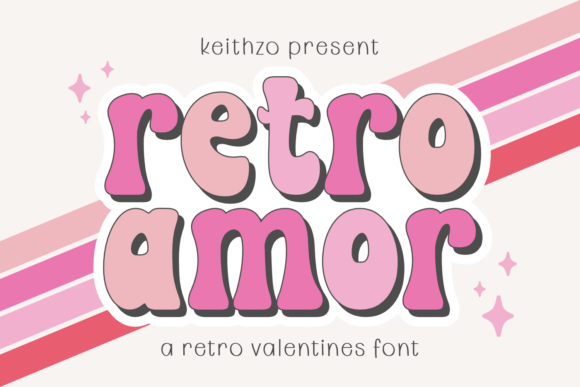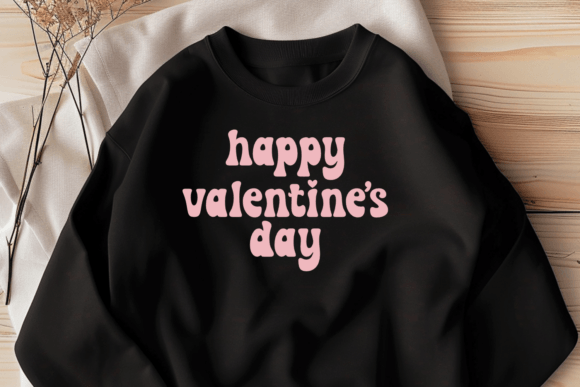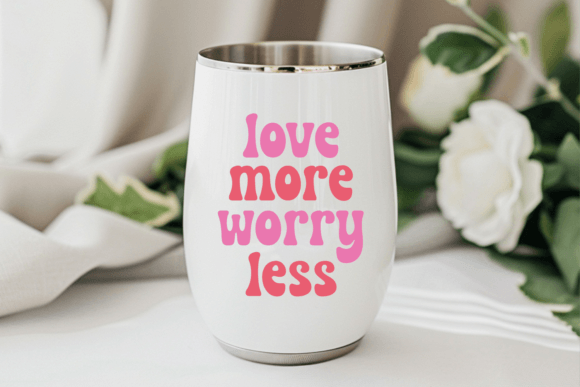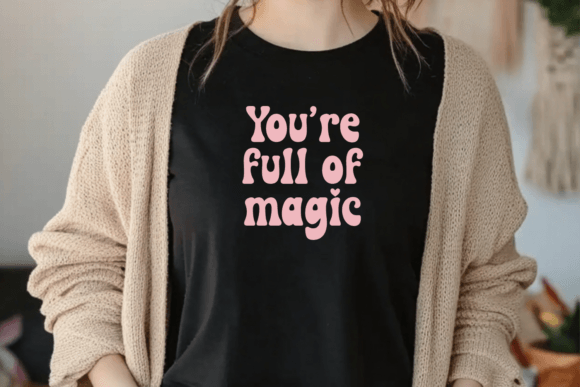
Retro Amor Font: Groovy 70s Typography for Valentine’s Day Designs
About the Retro Amor Font
From logos to headlines, the Retro Amor Font is the perfect choice for making a lasting impression. Unleash the spirit of the free-spirited 70s with Retro Amor! A delightfully groovy, nostalgia-tinted font that pulsates with an upbeat rhythm. Transporting you on a wild ride to a time of unrestrained joy and freedom, its effervescent, curvy letters are a visual joyride. Whether you’re crafting invitations for a Valentine’s soiree, creating retro-inspired Valentine’s day designs, or fashioning vintage-style branding, Retro Amor infuses a radiant layer of cheer and fond memories. This font is not just a typography choice, it’s a merry companion that brings your creative adventures to life, spreading laughter and happiness. Let Retro Amor be the smile on your design canvases, spreading joy one letter at a time!
Retro Amor Font Usage Examples
Retro Amor Font Example